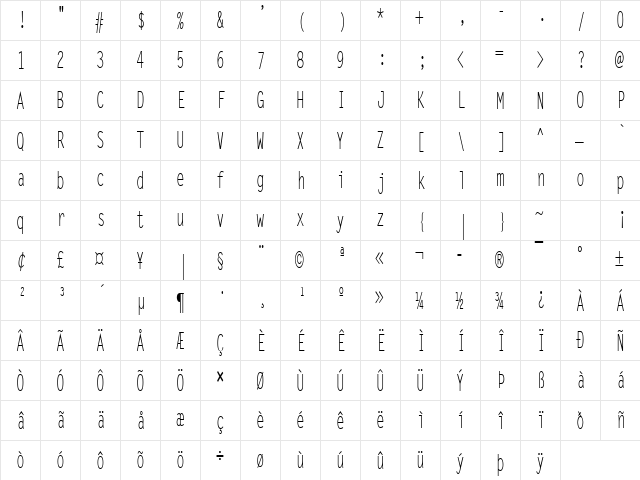
Lechter Thin Normal
Design Context for Lechter Thin Typeface
Lechter Thin takes a measured approach to typography — its balanced proportions and neutral character make it a reliable workhorse for both digital and print work. Its slender proportions lend an understated elegance to any composition.